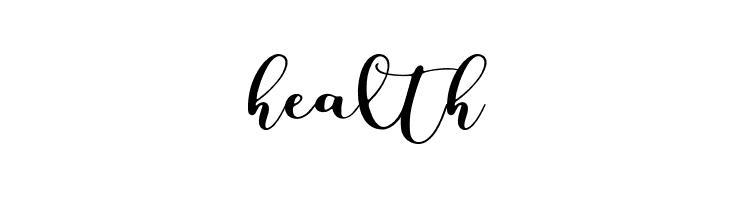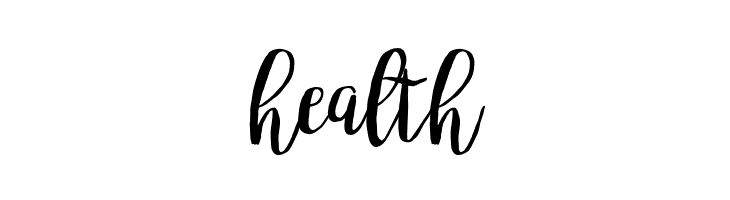
( Fonts by Marc Lohner )
A bold, rounded font with a modern and friendly style.
( Fonts by Kaman L )
A decorative font inspired by Mahjong tiles, featuring intricate patterns and cultural motifs.
A modern, geometric font with a sleek, condensed style.
( Fonts by Adam Ladd )
A playful decorative dingbat font with geometric shapes, banners, arrows, and dividers.
( Fonts by Anita Jürgeleit )
A decorative font with ornate patterns and elegant flourishes.
A bold, geometric typeface with clean lines and sharp angles.
A dynamic, expressive handwritten font with fluid strokes.
A bold, expressive brushstroke font with dynamic and textured characters.
A clean, modern monospaced font with uniform character width and geometric structure.
A thin, whimsical font with playful curves and consistent stroke width.
A bold, geometric font with sharp angles and a modern, dynamic style.
A bold, rounded font with a playful and dynamic style.
A thin, geometric font with a modern and minimalist style.
A modern, italicized sans-serif font with smooth, consistent strokes.
A modern, bold, italic sans-serif font with clean lines and excellent readability.
A clean, modern sans-serif font with balanced spacing and uniform stroke width.
A sleek, modern sans-serif font with a light, italic style.
An elegant serif font with a classic italic style and refined curves.
A bold, modern sans-serif font with clean lines and balanced proportions.
A bold serif font with high contrast and sharp serifs, exuding classic elegance.
A bold, italic serif font with a classic and elegant style.
A modern, light sans-serif font with clean lines and excellent readability.
A classic serif typeface with elegant and refined letterforms.